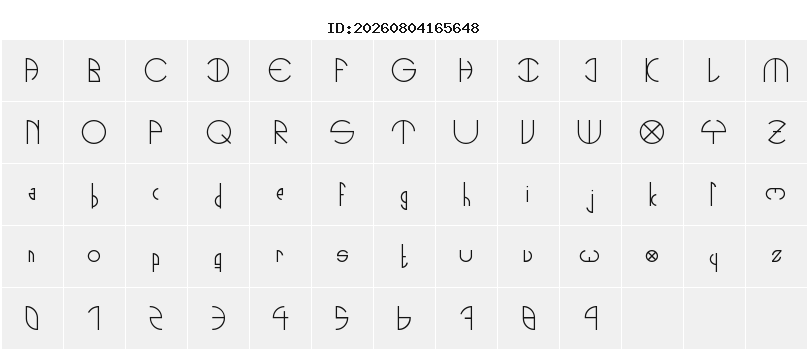
Night's out Preview
About Night's out.ttf
Night's out.ttf is a modern, elegant sans-serif font designed for ultimate readability and visual harmony. Perfect for branding, headlines, web design, and print materials.